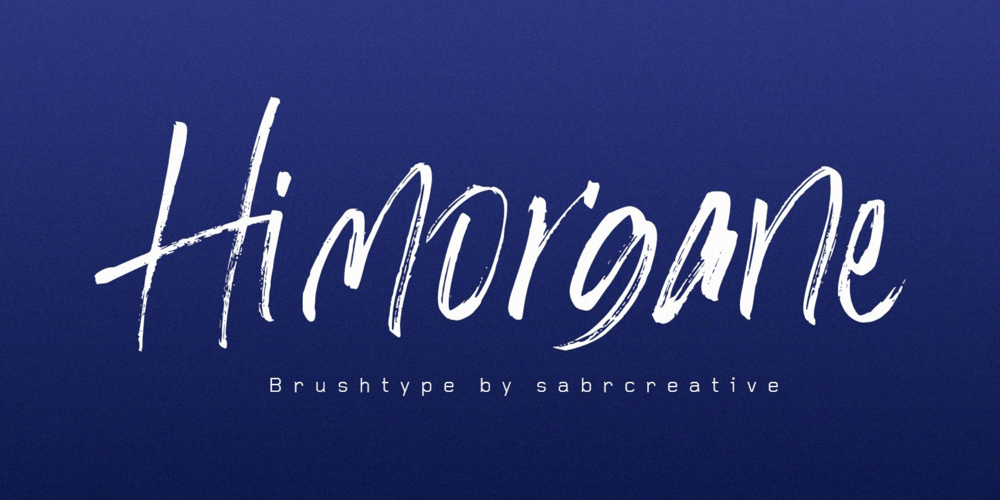
Hi Morgane Font Family was designed by Irpan Maulana and published by Sabrcreative. Hi Morgane contains 1 styles and family package options. Introducing Hi Morgane, a stunning brush script font that brings a touch of elegance and spontaneity to your designs. This font is perfect for adding a personal and artistic flair to branding projects, logo designs, invitations, and more. With its graceful brush strokes and versatile style, Hi Morgane captures attention and creates a lasting impression.The combination of uppercase and lowercase letters in Hi Morgane offers a harmonious balance and allows for creative typography exploration. Whether you’re aiming for a bold and impactful statement or a delicate and refined touch, this font has the flexibility to deliver.Hi Morgane doesn’t limit itself to a specific language; it embraces diversity with its multilingual support. Express your message in various languages, reaching audiences around the world and ensuring inclusivity in your designs.Unlock the full potential of Hi Morgane with its PUA encoding, enabling easy access to additional characters and glyphs. This feature empowers you to create unique and customized designs, adding a personal touch to every project.Embrace the artistic allure of brush script fonts with Hi Morgane, the perfect choice for designers seeking a blend of elegance and individuality. Let your creativity flow and make a statement that stands out from the crowd with this captivating font.